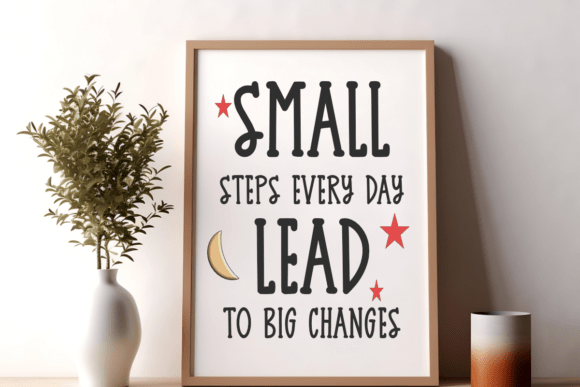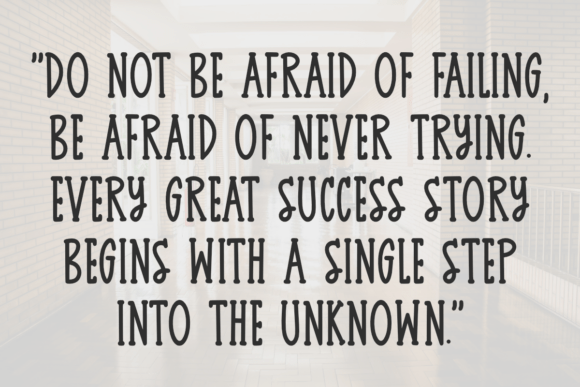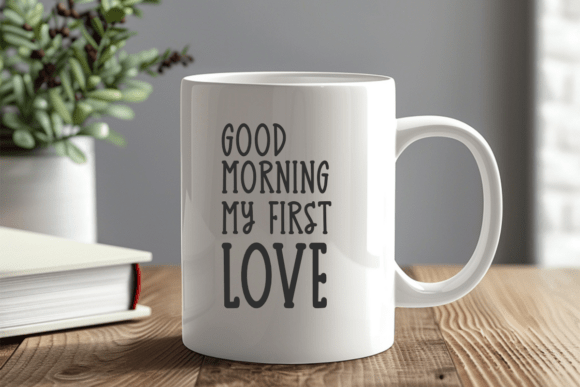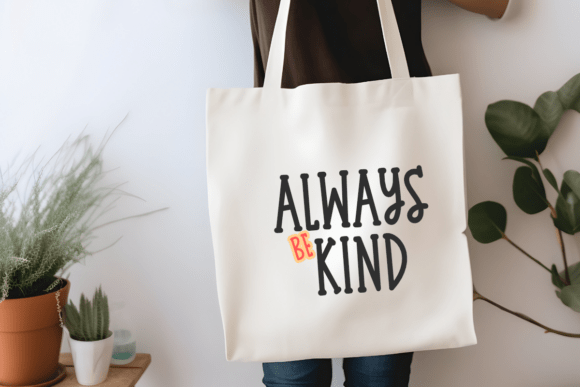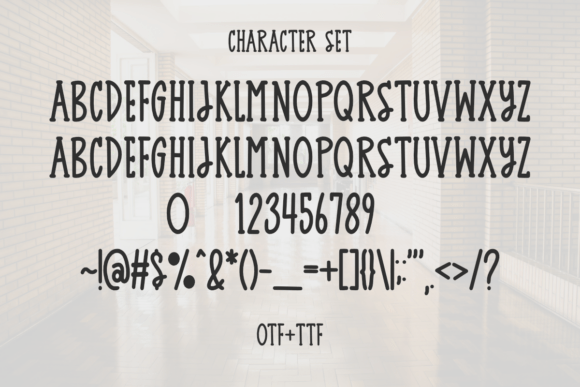
Designing with Joy: The Magic of Floor Empty Font
Who hasn’t been stuck in a creative rut, staring at a blank page with nothing but a faint idea of what they want to create? For many designers, the blank page can be a daunting task, but what if it was the perfect opportunity to unleash your inner child and bring a little bit of whimsy to your design?
| 👤 Author | Letterayu |
Enter Floor Empty Font, a cheerful slab serif font that’s bursting with energy and charm. This playful font is designed to bring a kid-friendly vibe to your designs, making it perfect for storybooks, children’s games, posters, and anything that needs a dose of fun. Whether you’re designing for kids or just want to tap into your own inner child, Floor Empty Font is the perfect tool to add some joy and whimsy to your work.
Key Features of Floor Empty Font
- Unique Characteristics: The font features a unique, empty design that creates a sense of space and minimalism, making it ideal for modern and sleek designs.
Designer Review: Floor Empty Font
Overall, I’m quite impressed with the Floor Empty Font. ✨ Its clean and modern design makes it perfect for digital products and interfaces. The font’s high x-height and open counters give it a friendly, approachable feel that works well in body text. ✨ The font also comes in a range of weights, from light to bold, which makes it versatile for various design applications.
However, there are a few limitations to consider. ⚠️ The font’s design can make it difficult to read at small sizes, particularly in its lighter weights. Additionally, the font’s lack of italic and oblique styles may limit its use in certain contexts. ⚠️ Furthermore, the font’s high x-height can sometimes make it feel a bit too playful or juvenile, which may not be suitable for all design projects.
Key Features:
- Modern, clean design
- High x-height and open counters
- Range of weights (light to bold)
- Works well in digital products and interfaces
Practical Application Guide: Floor Empty Font
The Floor Empty Font is perfect for creating modern and minimalist designs. Here are some tips for getting the most out of it:
1. Use it for headings and titles to add a touch of elegance to your design.
2. Pair it with bold and italic fonts to create a visually appealing contrast.
3. Experiment with different font sizes and colors to create a unique design.
The Floor Empty Font is ideal for:
1. Branding and logo design.